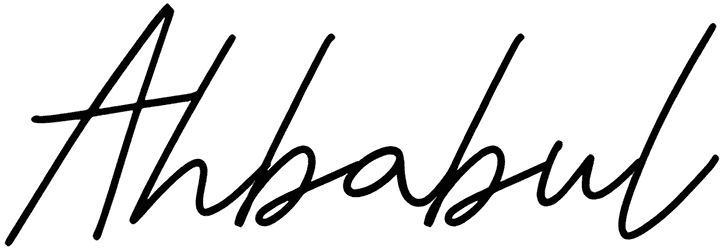
Ahbabul Font
Ahbabul is a handwritten font with inconsistent curves that can create a laid-back style in any writing and reflect a human personality. No matter what your design is, this font can give it a personalized and custom vibe. This script font can create a sense of freedom and romance on wedding cards, book pages, and tattoos.